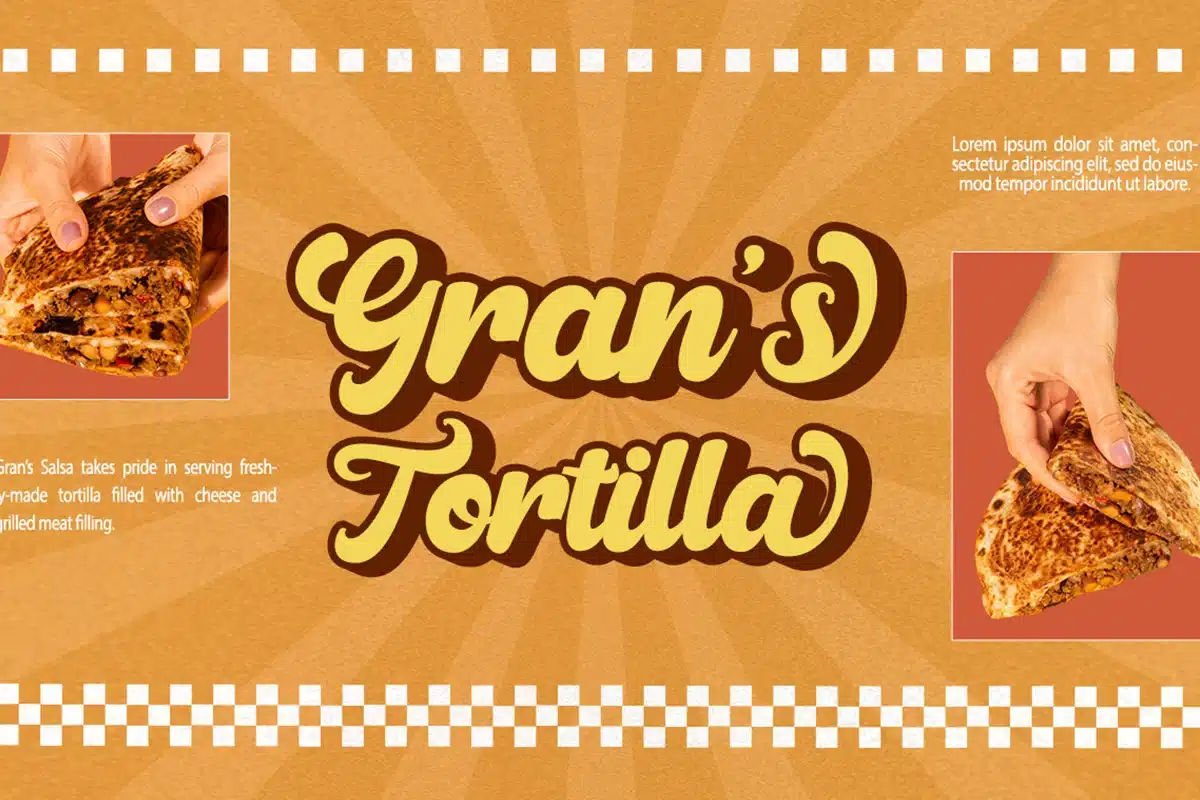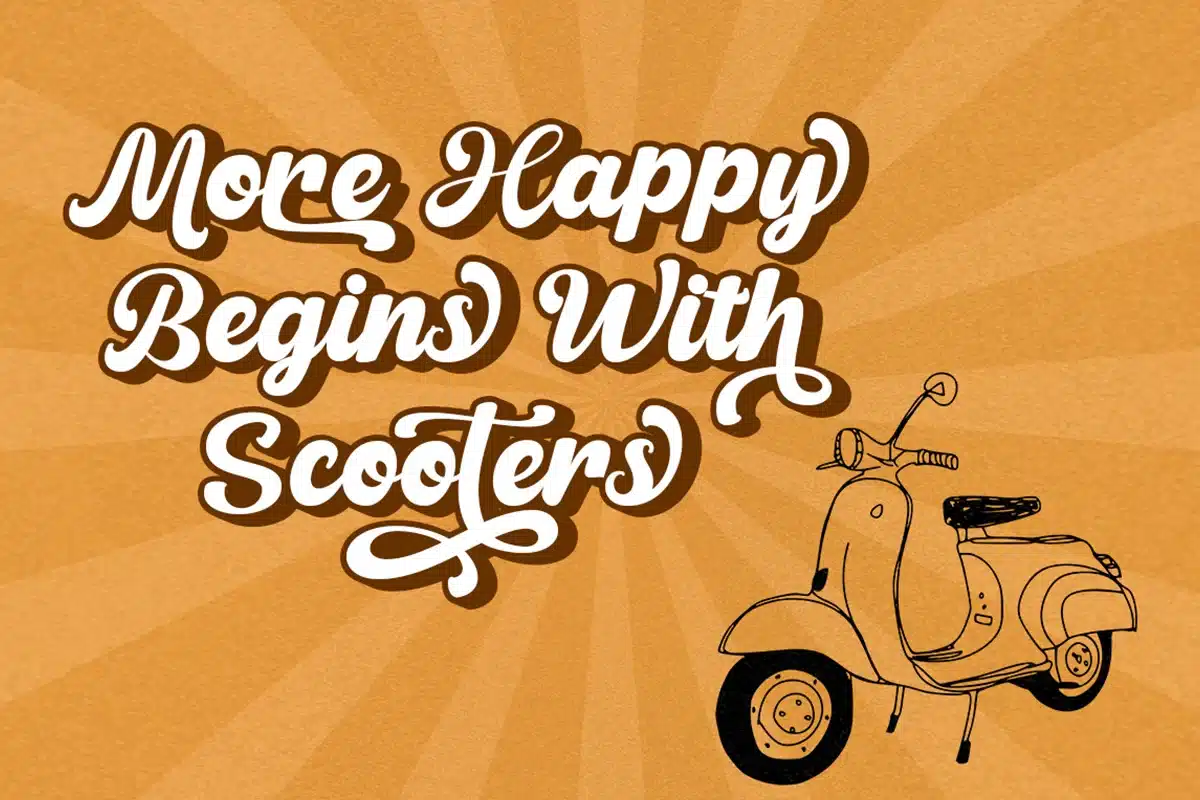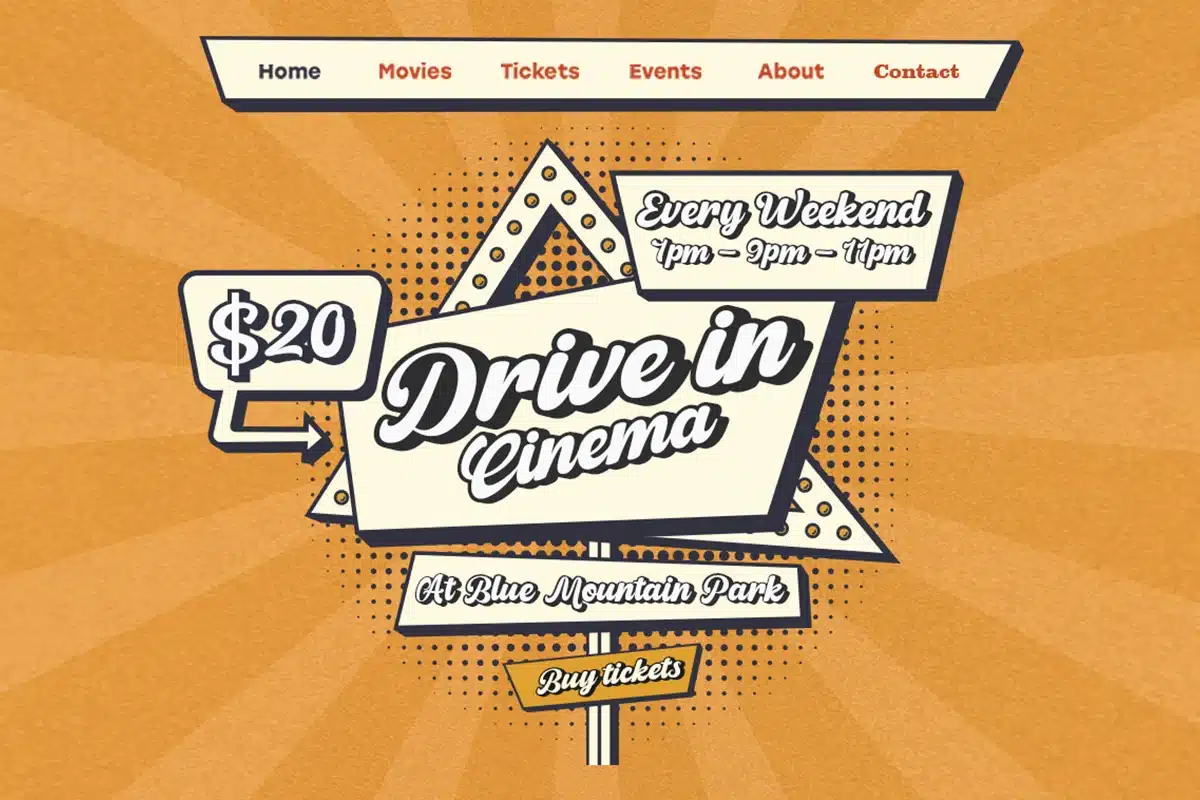
Astrone Font
Astrone - Classic Retro Font, with very soft curves and lines making this font look beautiful and realistic.
Astrone is a bold vintage script typeface that blends retro charm with confident, flowing strokes. Its smooth curves and expressive swashes evoke a nostalgic mid-century aesthetic, while the thick outlines and soft shadowing give it strong visual presence. Designed to capture attention, it balances elegance and playfulness, making it ideal for branding, packaging, signage, and headline displays that seek a warm, classic yet dynamic personality.
With 301 Characters, Astrone is perfect for all your design projects, such as invitation cards, product logos, food brands, logos and more.